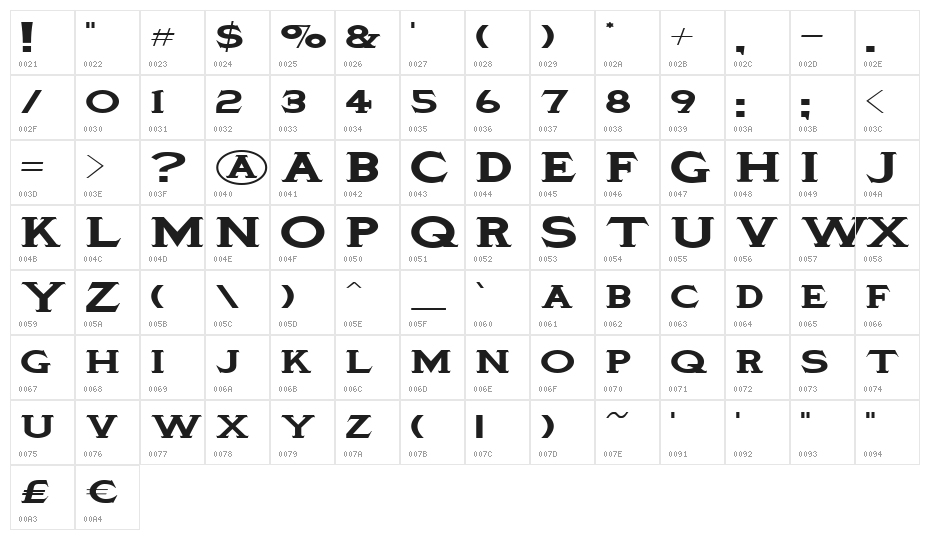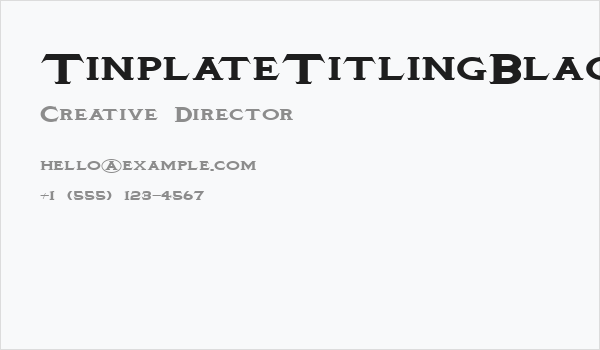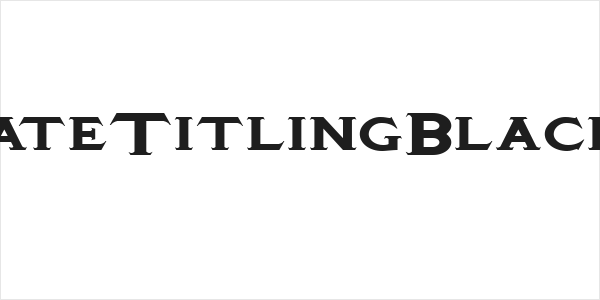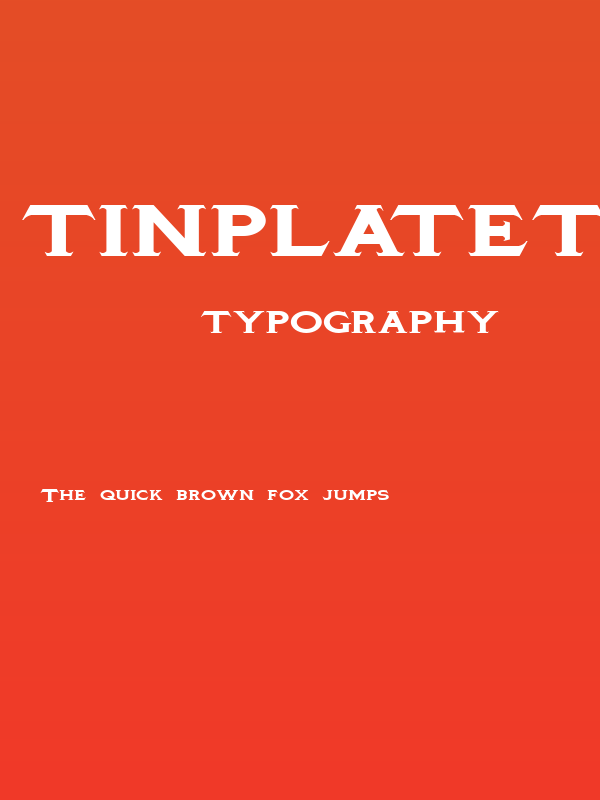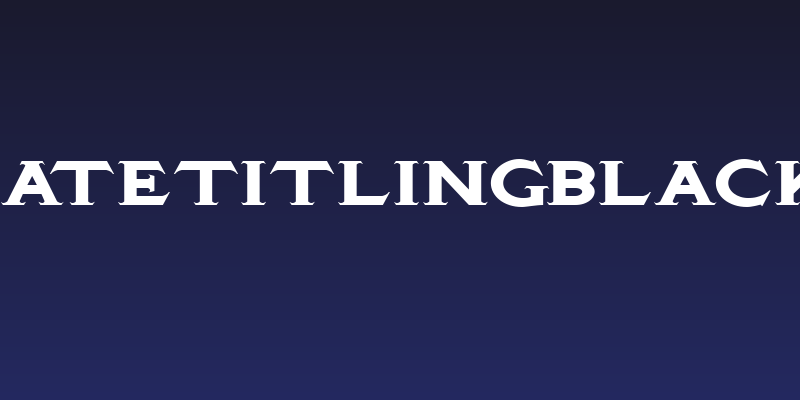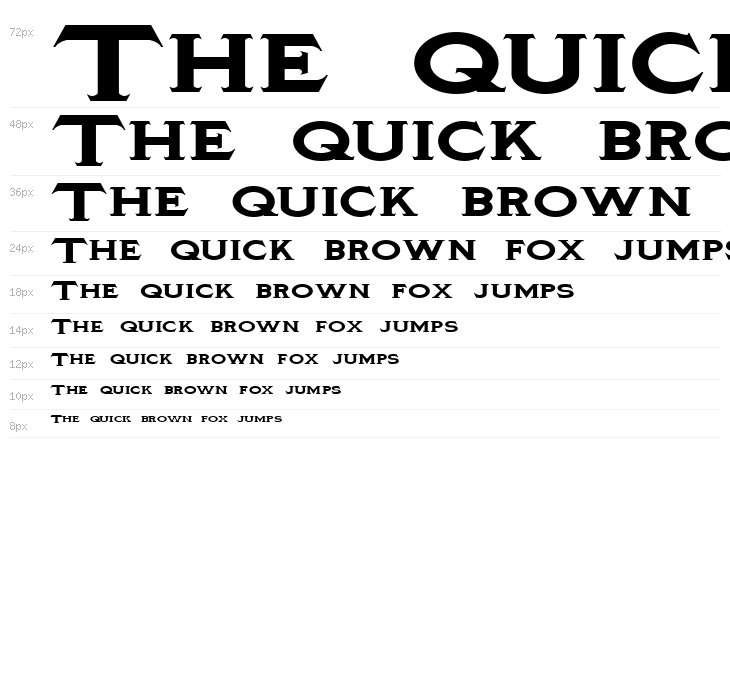
TinplateTitlingBlackWide Font
TinplateTitlingBlackWide Description
This font features a bold and wide design, characterized by its strong presence and impactful appearance. The letters are uniformly thick, providing a sense of stability and confidence. The geometric shapes of the characters give it a modern and industrial feel, suitable for making a statement. The font maintains a consistent width across all characters, ensuring a balanced and cohesive look. Its boldness is complemented by a wide stance, making it ideal for attention-grabbing headlines or titles. The overall style is clean and straightforward, with a focus on clarity and legibility.
| Proposed Projects | Ideal for branding, poster design, and any project requiring a strong visual impact. |